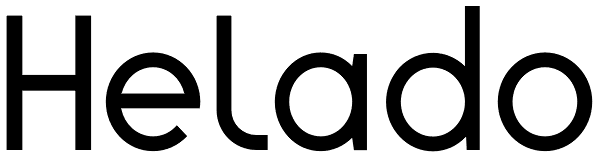
Helado
Helado is an elegant, modern sans-serif font, based on the idea to work as close as possible on the geometric forms of the circle and the square. Following swiss design classics Helado comes in these weights: LIGHT, REGULAR, BOLD and EXTRABOLD...